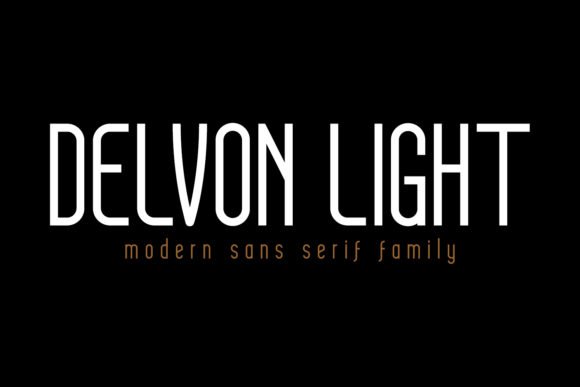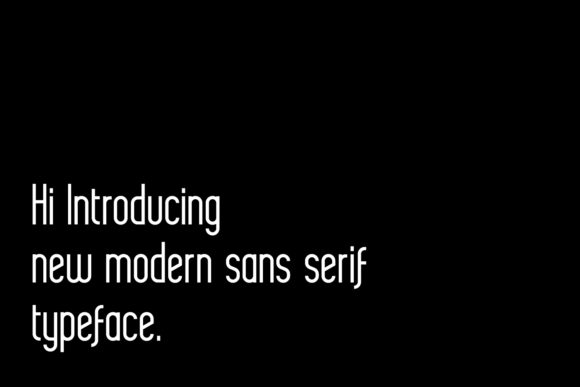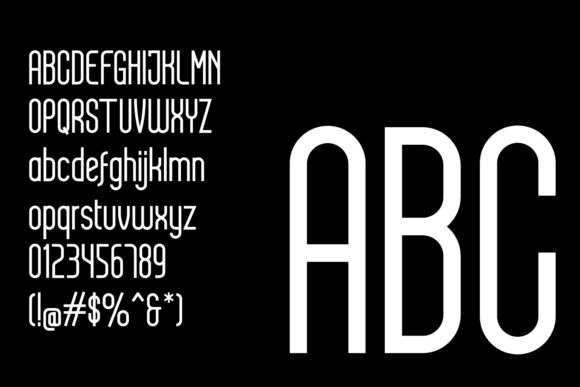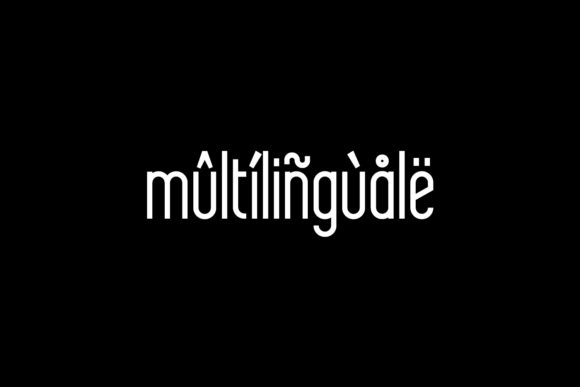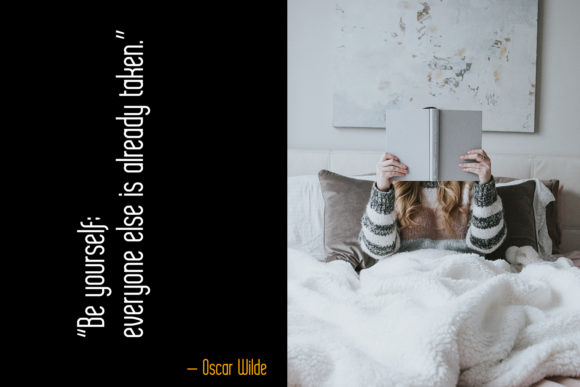
Discover the Perfect Canvas for Your Creative Vision
Have you ever stared at a blank page, wondering how to bring your idea to life? The blank space can be daunting, but it’s in these moments of uncertainty that we find our most innovative solutions. For designers, the right font can be the key to unlocking a project’s full potential.
Enter Delvon Light Font, a modern sans serif font family designed to elevate your brand and bring your vision to the forefront. With its clean lines and sophisticated feel, Delvon Light Font is perfect for a wide range of applications, from product packaging and invitations to t-shirts and posters. Whether you’re a seasoned pro or just starting out, this versatile font is an invaluable asset in your design toolkit.
Delvon Light Font Key Features
- Font Family: Delvon Light, Delvon Regular, Delvon Bold
- Font Size: 5,000+ glyphs, including Latin, Cyrillic, Greek, and Devanagari scripts
- Unique Characteristics: Delvon Light features a unique blend of modern and vintage elements, with clean lines and subtle flair, making it ideal for use in logos, branding, and editorial design
Delvon Light Font Review
Overall, I found the Delvon Light Font to be a solid choice for a clean and modern design. ✨ The font’s rounded edges and smooth curves make it perfect for titles and headings, while its light weight keeps the overall aesthetic feeling airy and uncluttered.
One of the standout features of Delvon Light Font is its versatility. ✨ It works well in a variety of contexts, from digital interfaces to print materials. Additionally, the font’s OpenType features allow for advanced typographic control, making it a great choice for designers who want to push the boundaries of their designs.
- ✨ Rounded edges and smooth curves for a clean look
- ✨ Light weight for an airy and uncluttered aesthetic
- ✨ Versatility for use in various contexts
- ✨ Advanced OpenType features for typographic control
- ⚠️ Limited character set for some languages
- ⚠️ May not be suitable for bold or dramatic text
Overall, I would give Delvon Light Font 4 out of 5 stars. While it has some limitations, its clean design and versatility make it a great choice for designers looking for a modern and stylish font. With some careful selection of context and use, Delvon Light Font can be a real showstopper in your designs.
The Delvon Light Font is a versatile font that can be used for a variety of purposes, including:
- Restaurant and cafe menus
- Product packaging and labels
- Editorial and magazine design
Alternatives to Delvon Light Font
Open Sans is a modern sans-serif font that is highly legible and versatile. It is ideal for digital products, websites, and apps. Open Sans has a clean and friendly feel, making it suitable for a wide range of applications.
Comparison to Delvon Light Font: Open Sans is more modern and has a slightly more angular feel than Delvon Light Font. While Delvon Light Font has a softer, more elegant appearance, Open Sans is more versatile and adaptable to different contexts.
Lato is a sans-serif font that is highly legible and elegant. It is ideal for corporate identities, websites, and print materials. Lato has a clean and sophisticated feel, making it suitable for formal and professional applications.
Comparison to Delvon Light Font: Lato has a more formal and elegant appearance than Delvon Light Font, with a focus on sophistication and refinement. While Delvon Light Font has a softer, more approachable feel, Lato is more polished and professional.
Montserrat is a sans-serif font that is highly legible and urban. It is ideal for digital products, websites, and urban-themed applications. Montserrat has a strong and edgy feel, making it suitable for bold and modern designs.
Comparison to Delvon Light Font: Montserrat has a more urban and edgy appearance than Delvon Light Font, with a focus on boldness and modernity. While Delvon Light Font has a softer, more elegant feel, Montserrat is more rugged and industrial.
Q: Is Delvon Light Font available in different weights?
Yes, Delvon Light Font is available in a range of weights, including Light, Regular, Medium, Bold, and Black. This allows designers to choose the perfect weight to suit their design needs and create a consistent visual hierarchy.